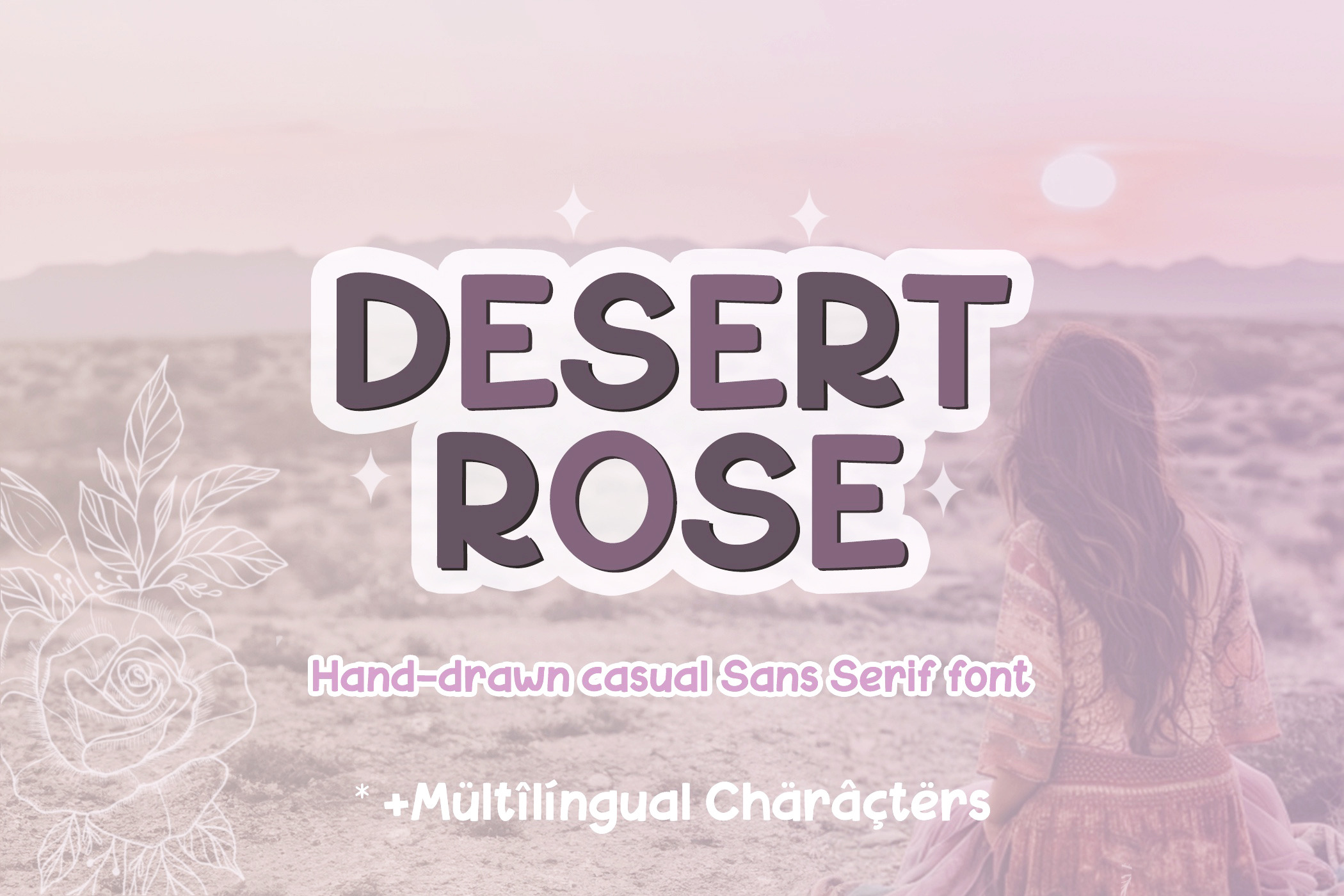
Hand Drawn Sans Serif Display Font
Introducing Desert Rose, a hand written sans serif display font. A versatile font, with possibilities for use for all your projects.
Desert Rose includes:
~ full upper + lowercase characters ~ numbers + basic punctuation ~ multilingual characters